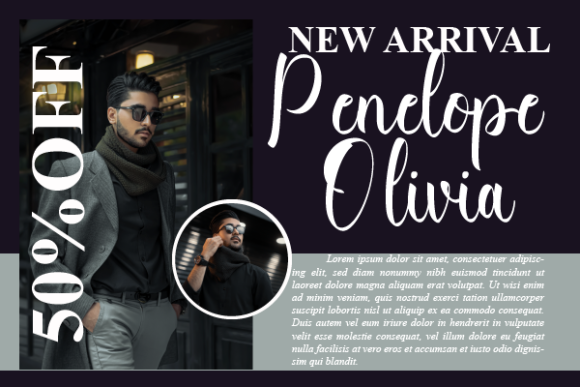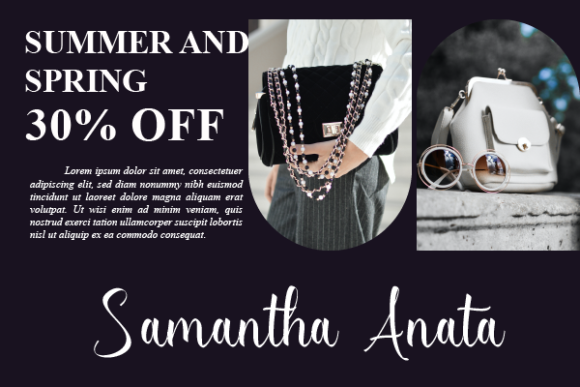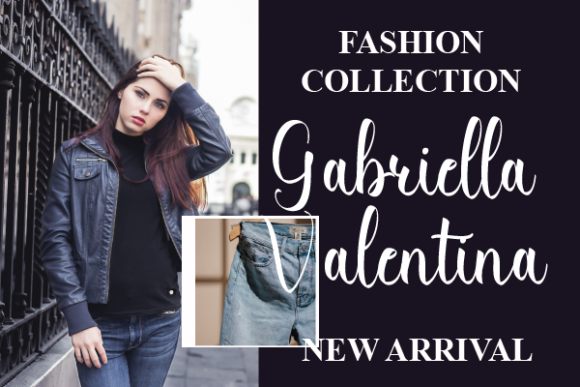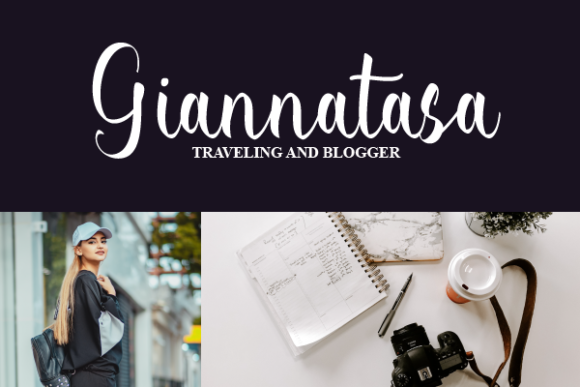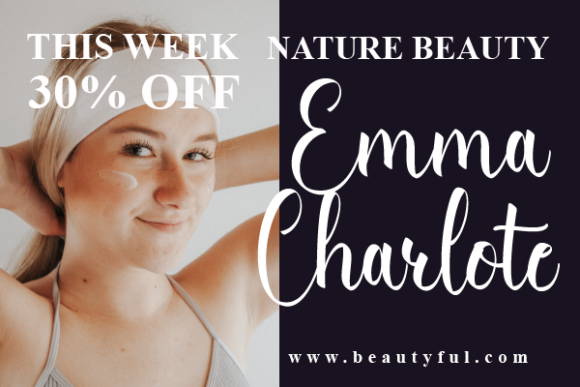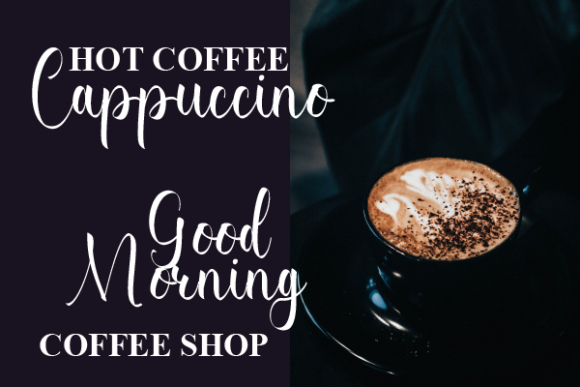
Have you ever stared at a blank canvas, waiting for inspiration to strike? It’s that moment when everything comes together – the colors, the textures, the fonts. The right font can elevate your design from ordinary to extraordinary. And, for designers looking for that special something, we’ve got just the thing.
Meet Cataleya Makenna Font, a relaxed and cursive script font designed to make your branding projects shine. Whether it’s a logo, t-shirt printing, or creative products, Cataleya Makenna Font is the perfect choice. Its versatility and unique charm make it a valuable asset for designers who want to add a personal touch to their work.
With Cataleya Makenna Font, the possibilities are endless. From packaging to advertisements, this font will bring a sense of elegance and sophistication to your designs. So, why settle for ordinary when you can have extraordinary? Try Cataleya Makenna Font today and take your designs to the next level.
Cataleya Makenna Font Key Features
- Unique Characteristics: This font features a unique blend of modern and elegant script elements, making it ideal for creating eye-catching and sophisticated designs.
Cataleya Makenna Font Review
I recently had the chance to work with the Cataleya Makenna font, and I must say, it’s a unique and beautiful addition to any design project. ✨ The elegant, handwritten feel of this font makes it perfect for creating a sense of luxury and sophistication. It’s ideal for wedding invitations, high-end branding, or any project where you want to convey a sense of refinement.
Here are some of the things that work well with Cataleya Makenna:
- ✨ Elegant, handwritten feel that’s perfect for luxury branding
- ✨ High-quality vector graphics that scale well
- ✨ Supports multiple languages, making it a great choice for international projects
- ⚠️ Limited character set, which may cause issues for certain projects
- ⚠️ May not be suitable for body text, as it can be difficult to read at small sizes
Overall, I’m impressed with the Cataleya Makenna font. While it may have some limitations, its unique feel and high-quality graphics make it a great choice for the right projects. If you’re looking for a luxurious, handwritten font, Cataleya Makenna is definitely worth considering.